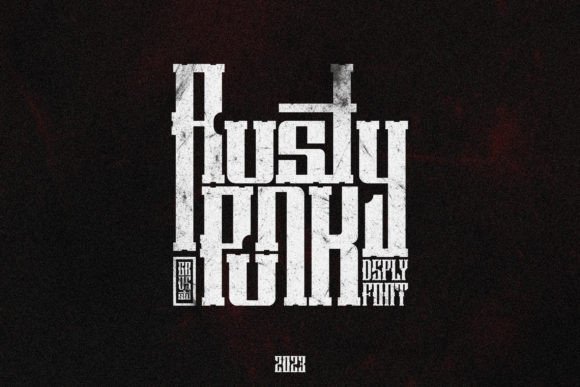
Journey into the realm of Steampunk with the captivating Rusty Punk Font, a display font that captures the essence of this genre with intricate details and a touch of whimsy. Brought to life by the creative vision of fontsmith febryan.satria1, Rusty Punk transports you to an era where gears and cogs danced in harmony with imagination.
This font is more than just a collection of letters and symbols; it's an invitation to embark on an adventure, to explore worlds where steam-powered machines and intricate contraptions define the landscape. Its Victorian-inspired letterforms, adorned with mechanical elements, evoke a sense of nostalgia and intrigue.
Envision your designs adorned with Rusty Punk's unique charm. Craft eye-catching headlines that ignite curiosity and transport your readers to a world of wonder. Create titles that exude an aura of mystery, inviting them to explore the depths of your creative vision.
Unleash the power of Rusty Punk in your creative projects and let your imagination run wild. Design logos that embody the essence of Steampunk, capturing the essence of a bygone era with a futuristic twist. Craft posters that evoke a sense of adventure, inspiring wanderlust and a thirst for exploration.
With Rusty Punk at your fingertips, the possibilities are endless. Dive into the world of Steampunk and let your creativity take flight. Embrace the intricate details, the gears and cogs, and the retro-futuristic charm that defines this genre. Make a statement with every design, leaving an indelible mark on the minds of your audience.
The Rusty Punk Font is not just a font; it's a gateway to a world of imagination, a catalyst for creativity. Let it ignite your passion and fuel your artistic journey. Start your Steampunk adventure today and let the Rusty Punk Font guide you along the way.